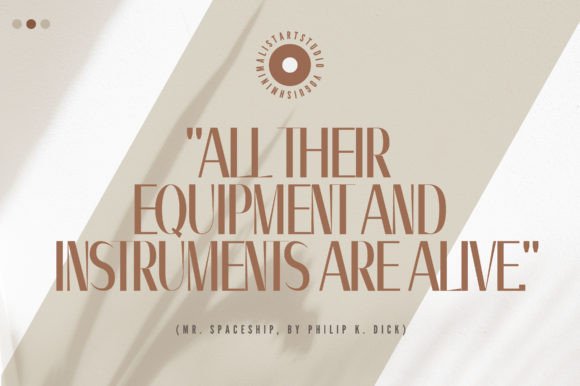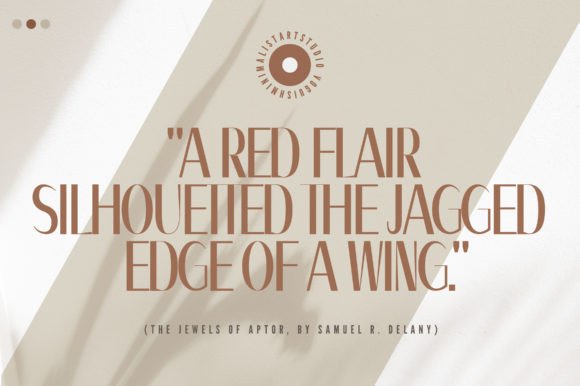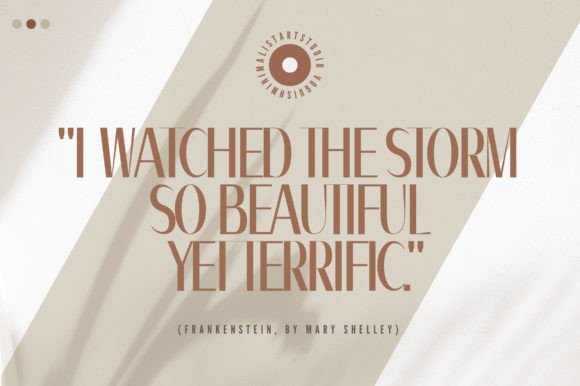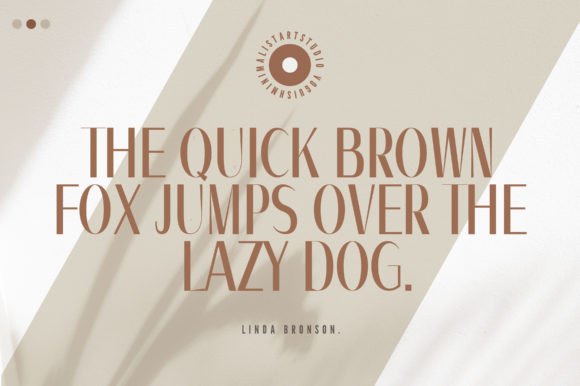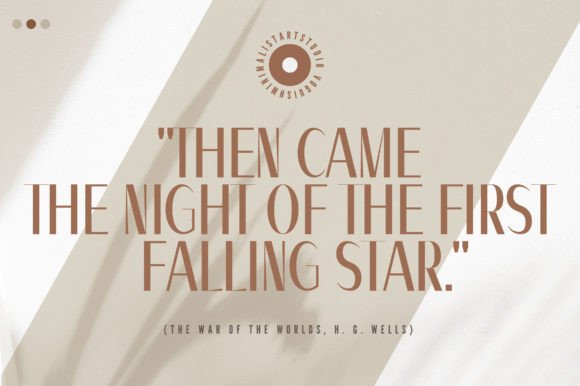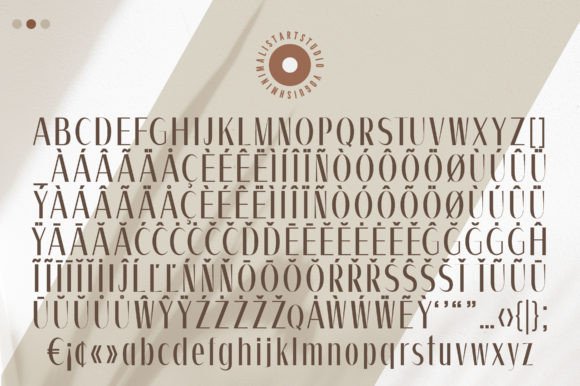
Fenier Font: The Ultimate Sans Serif Typeface for Modern Designs
In the world of typography, a good font can make all the difference in the success of a design project. For designers and crafters looking for a font that is both elegant and attention-grabbing, Fenier Font is an excellent choice. This minimalist, elegant, compressed, and eye-catching sans serif typeface is perfect for projects that require a bold and modern look.
What is Fenier Font?
Fenier Font is a sans serif typeface that is characterized by its tall and bold glyphs construction. This unique feature makes it stand out from other fonts and renders it a valid choice when working on projects that require grabbing attention. The font’s minimalist and elegant design makes it perfect for a wide range of applications, from branding and advertising to packaging and digital design.
Key Features of Fenier Font
Fenier Font has several key features that make it an excellent choice for designers and crafters. Some of its notable features include:
- Minimalist design: Fenier Font has a clean and simple design that makes it perfect for minimalist creative ideas.
- Elegant look: The font’s elegant design makes it suitable for high-end branding and advertising projects.
- Compressed style: Fenier Font’s compressed style makes it perfect for projects where space is limited.
- Eye-catching: The font’s bold glyphs construction makes it eye-catching and perfect for grabbing attention.
- Tall and bold glyphs: The font’s tall and bold glyphs construction makes it stand out from other fonts.
Use Cases for Fenier Font
Fenier Font is a versatile font that can be used in a wide range of applications. Some of its use cases include:
- Branding and advertising: Fenier Font is perfect for branding and advertising projects that require a bold and modern look.
- Packaging design: The font’s compressed style makes it perfect for packaging design projects where space is limited.
- Digital design: Fenier Font is suitable for digital design projects such as website design, mobile app design, and social media graphics.
- Print design: The font is also suitable for print design projects such as brochures, flyers, and posters.
Benefits of Using Fenier Font
Using Fenier Font in your design projects can have several benefits. Some of its benefits include:
- Unique look: Fenier Font’s unique design makes it stand out from other fonts and gives your design a distinctive look.
- Attention-grabbing: The font’s bold glyphs construction makes it perfect for grabbing attention and drawing the viewer’s eye.
- Versatility: Fenier Font is a versatile font that can be used in a wide range of applications.
- Ease of use: The font is easy to use and can be easily integrated into your design projects.
Fenier Font is a minimalist, elegant, compressed, and eye-catching sans serif typeface that is perfect for modern designs. Its unique features such as tall and bold glyphs construction make it stand out from other fonts and render it a valid choice when working on projects that require grabbing attention. With its versatility, ease of use, and attention-grabbing design, Fenier Font is an excellent choice for designers and crafters looking for a font that can add a touch of elegance and sophistication to their design projects.